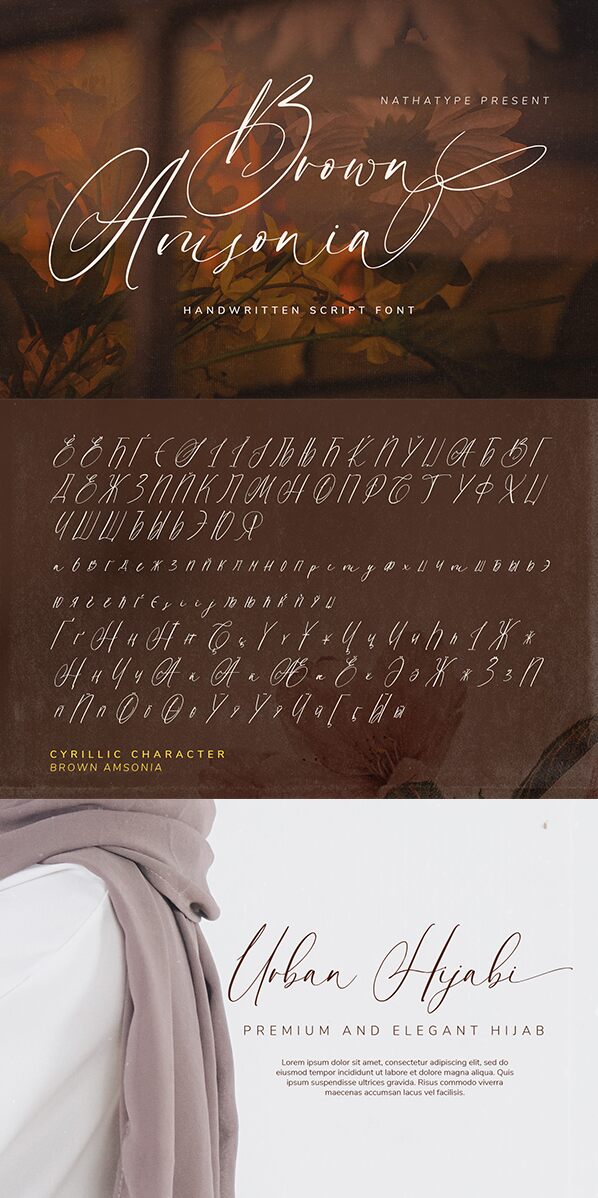
Brown Amsonia
Brown Amsonia font is a sophisticated light calligraphy free font from Nathatype that boasts a lovely, elegant, and expressive style. The script features outstanding flowing connecting characters which actually make it look like real handwriting whether on invitations, social media posts, or business logos.
The condensed stylish handwritten font includes incredible alternates and ligatures for each letter that can be easily accessed via software with OpenType capabilities. Use it for branding projects like logotypes or identity designs of cosmetics or fashion labels. Other uses include quotes, posters, advertising materials, film titles, packaging products’ creative design elements amongst many more options!